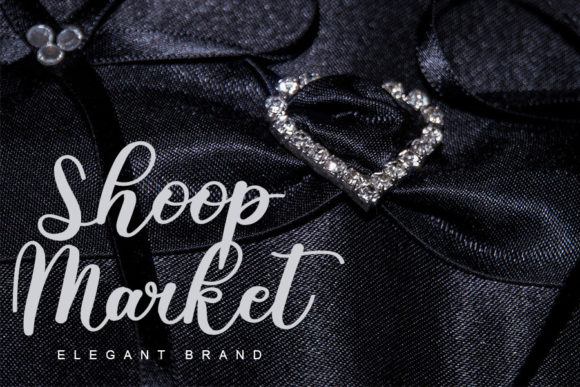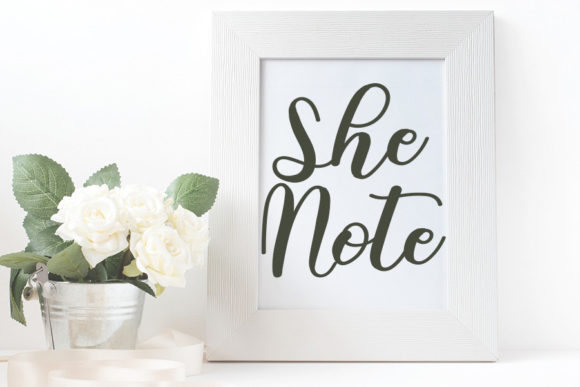
Introduction to Dahlya Font
Have you ever been working on a creative project, pouring your heart and soul into it, and then – BAM! – you find the perfect font that brings it all together? That’s exactly what I experienced when I stumbled upon the Dahlya Font. Its elegant, handwritten style is a breath of fresh air in the world of design, and I’m excited to share its magic with you.
As a designer, I know how crucial it is to have high-quality design resources at our fingertips. The Dahlya Font is a game-changer, offering a free download with a transparent background that makes it perfect for logos, business cards, wedding invitations, and more. With its PUA encoding, you’ll have access to all the glyphs and swashes you need to create truly stunning designs.
Whether you’re working on a personal project or a client’s request, the Dahlya Font is a valuable addition to your design toolkit. Its unique charm will elevate your creative work and make it stand out from the crowd. So, let’s dive in and explore the world of Dahlya Font together!
Key Features of Dahlya Font
- High-quality design resource ideal for creative projects, offering a unique and elegant aesthetic.
Honest Review: Dahlya Font
As a designer, I’m always on the lookout for high-quality design resources to elevate my creative projects. Recently, I stumbled upon the Dahlya Font, and I’m excited to share my honest review with you.
What works well: ✨ The Dahlya Font is incredibly versatile and comes with a range of styles and weights, making it perfect for a variety of design applications. I also appreciate the fact that it’s available for free download, which is a major plus for designers on a budget. The font is also highly customizable, with options for transparent backgrounds and advanced typographic controls.
Overall, I’m impressed with the Dahlya Font and would definitely recommend it to designers looking for a reliable and versatile design resource. Whether you’re working on a logo, brochure, or website, the Dahlya Font is sure to deliver.
Dahlya Font
The Dahlya Font is a versatile and modern design resource ideal for a wide range of creative projects. Its unique aesthetic and high-quality design make it a valuable addition to any design library.
Tips for Getting the Most Out of Dahlya Font
To get the most out of the Dahlya Font, try pairing it with other modern fonts and using it on a transparent background for a sleek look.